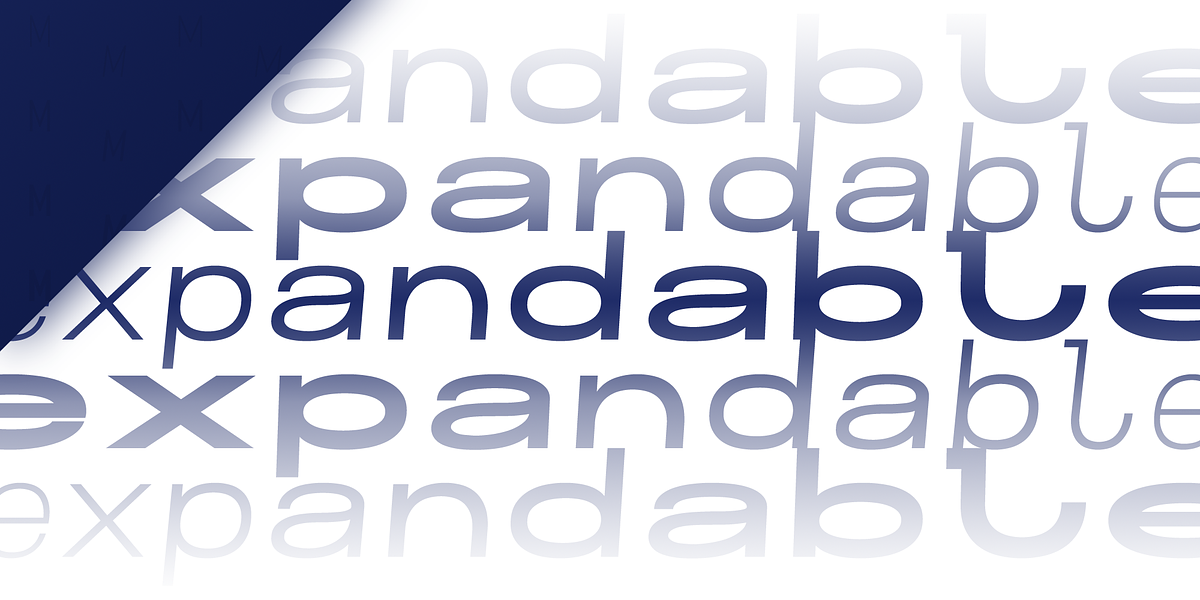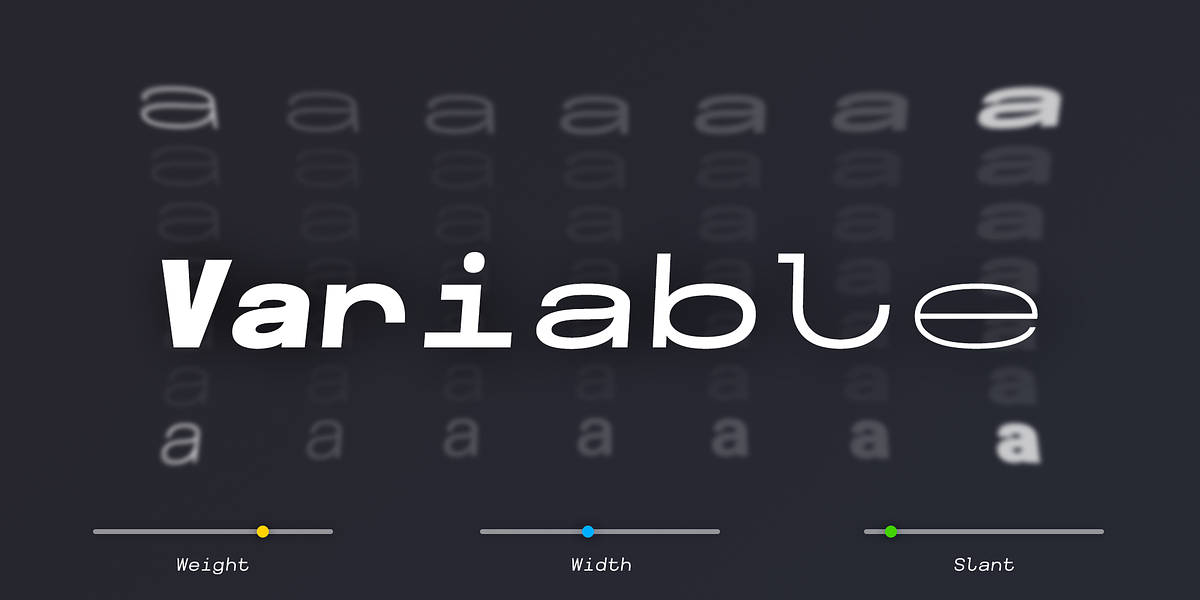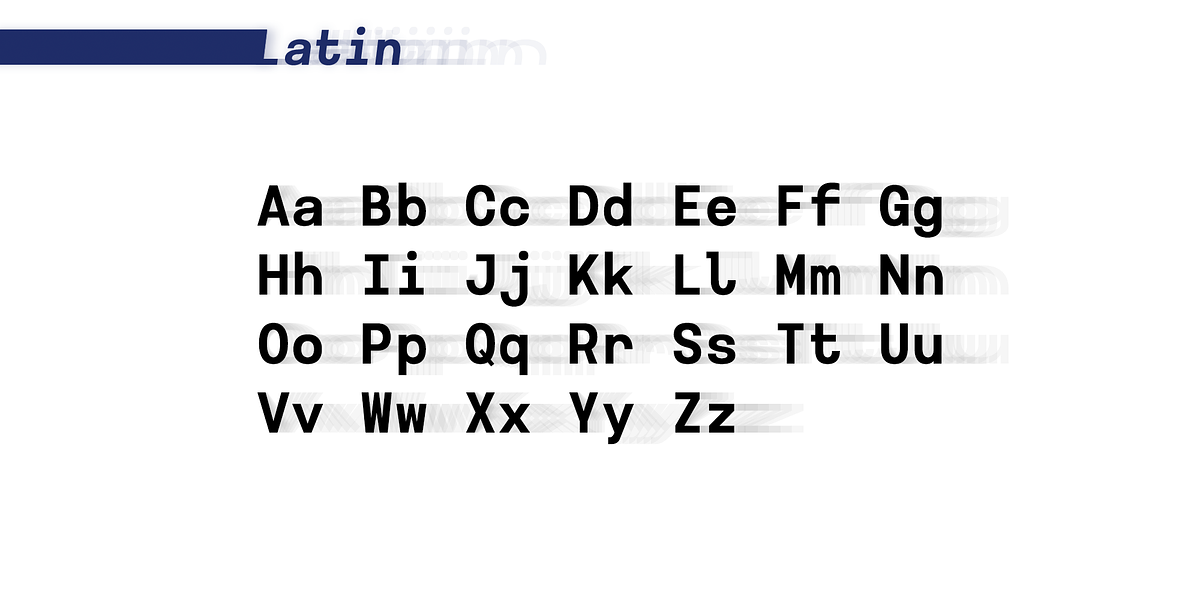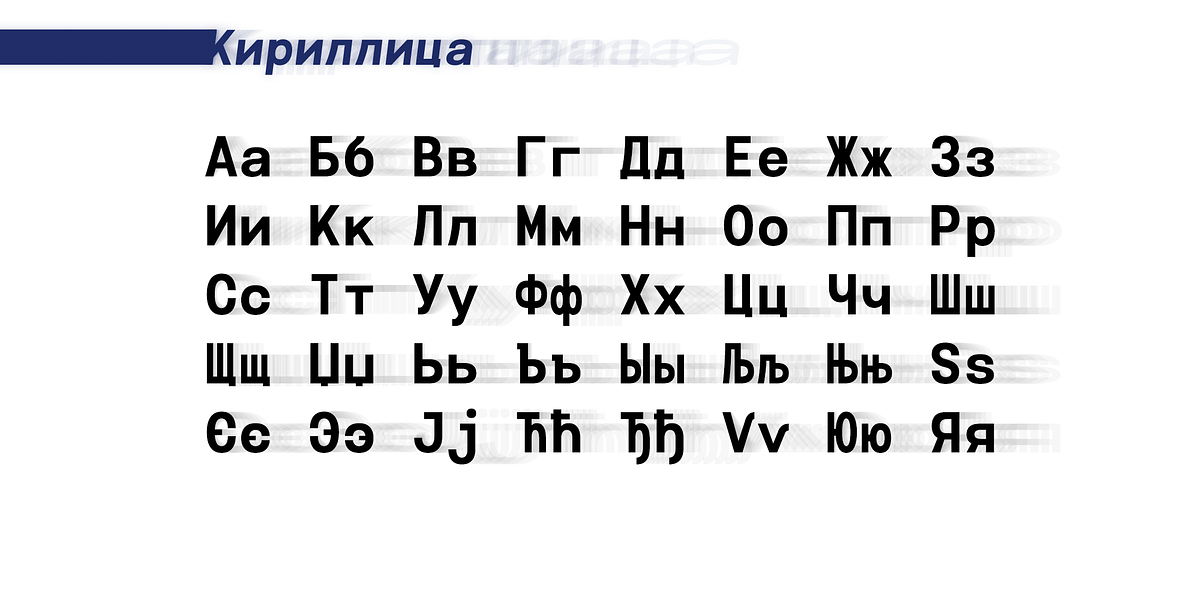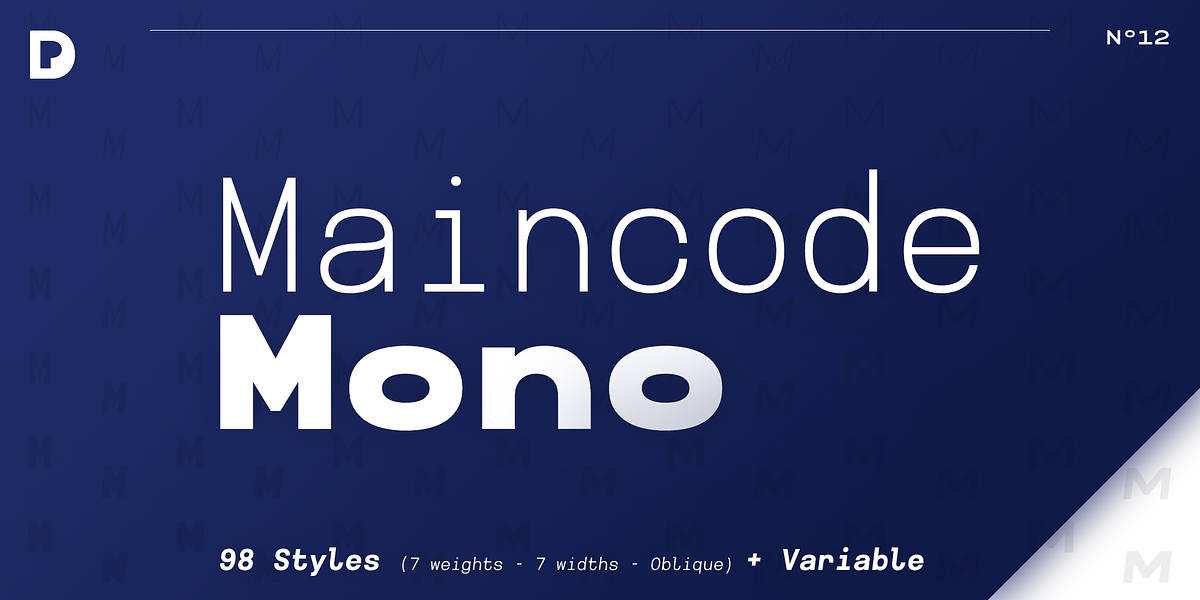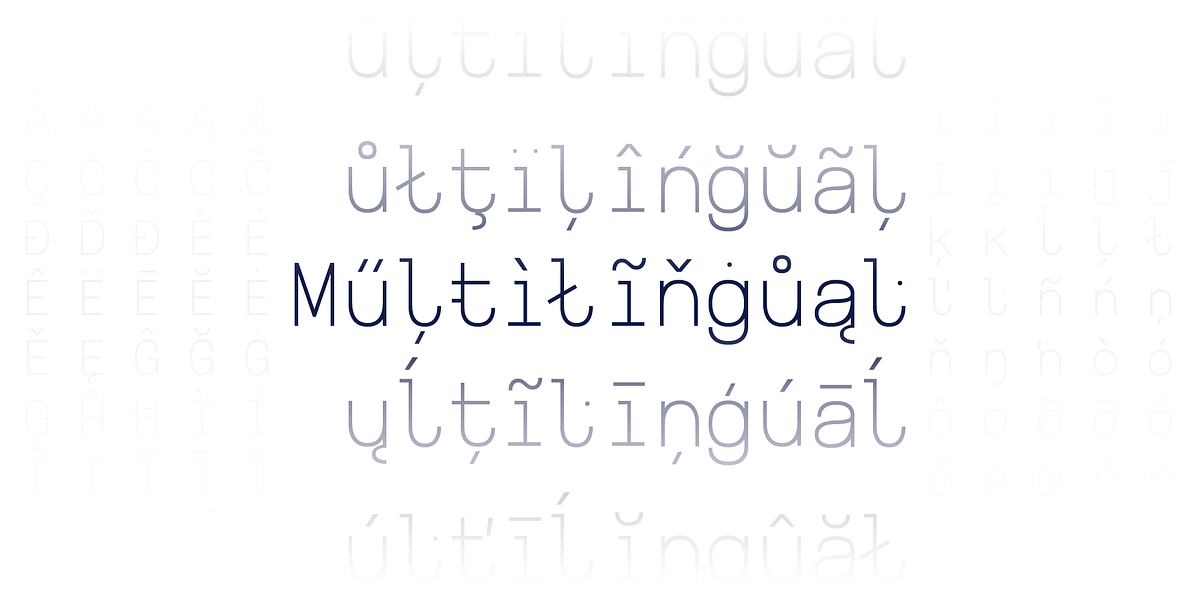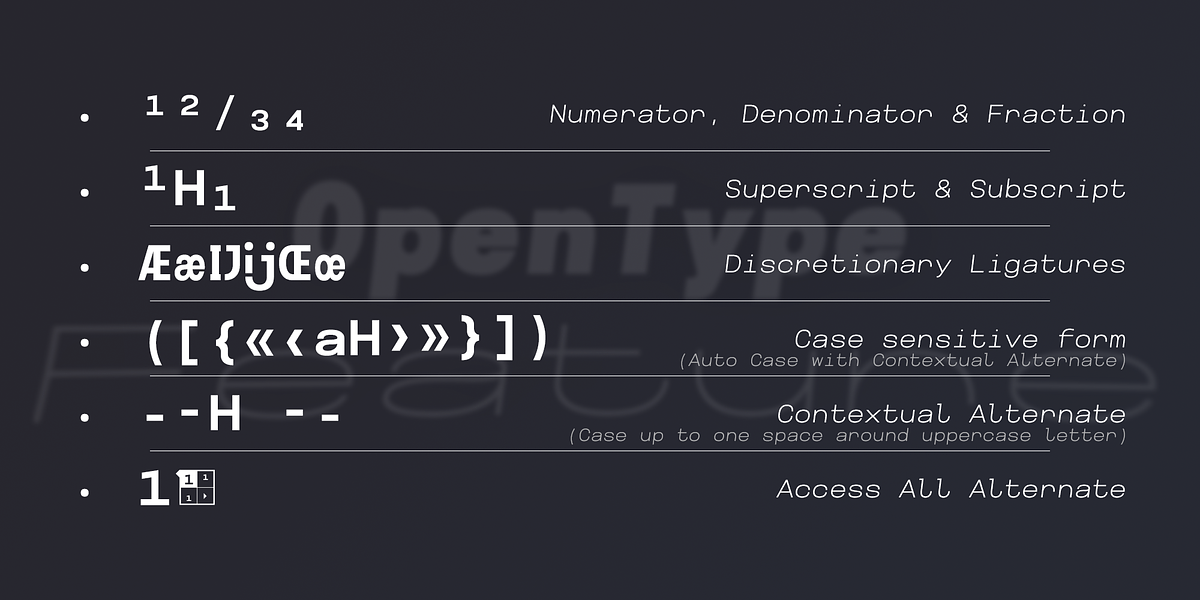
Maincode Mono
Maincode Mono is a modern and versatile monospaced typeface designed for technical use. It boasts 7 weights ranging from thin to bold, along with 7 widths including condensed and extended options. The font supports both Latin and Cyrillic alphabets and includes a variable version for added flexibility. With its clear legibility and wide range of stylistic choices, Maincode Mono is well-suited for coding, programming, design work, and any project requiring a clean and professional monospaced font.